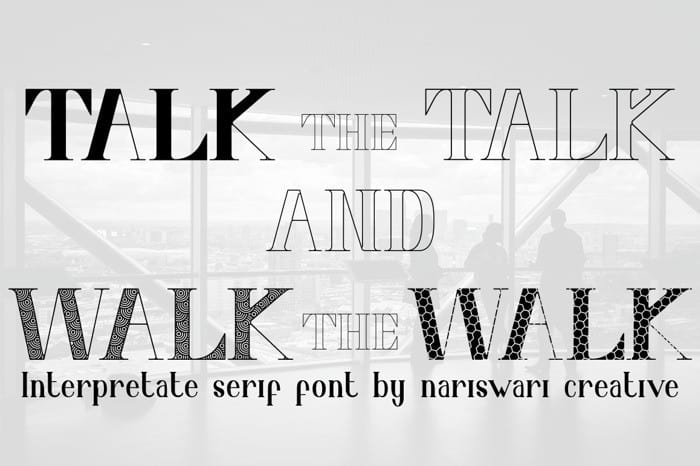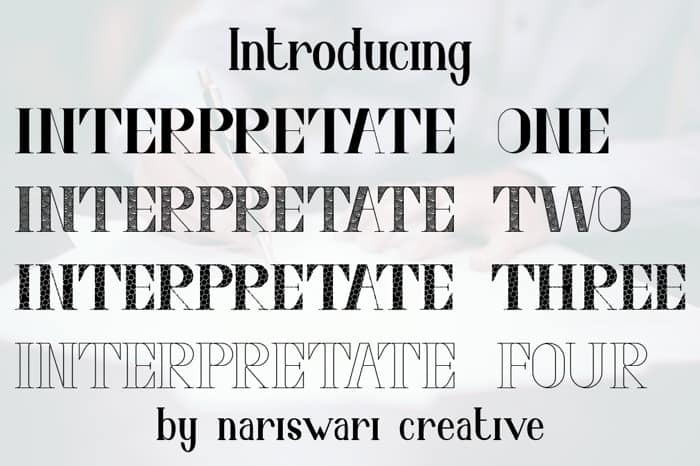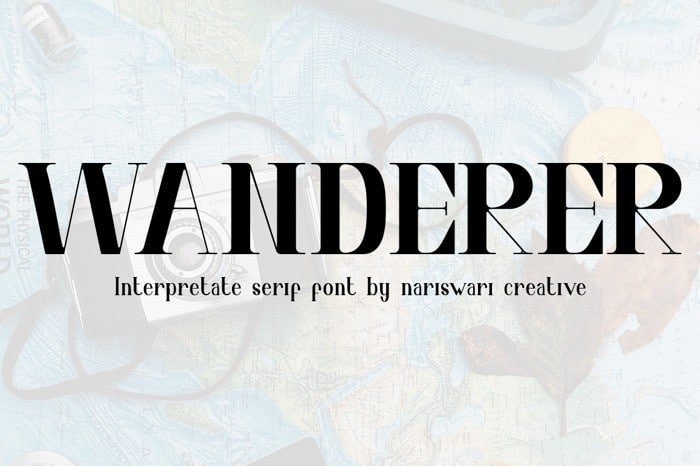
Introducing Interpretate Four Display Font. Vianor this is a lovely vintage label font. This font works great with text, but it looks even better with display titles, logos, and others. This font includes many alternatives to capital letters, with them you can make your design more expressive, varied and playful, change them and you will see how many options you can get for your design, also use ornaments to complement your design.